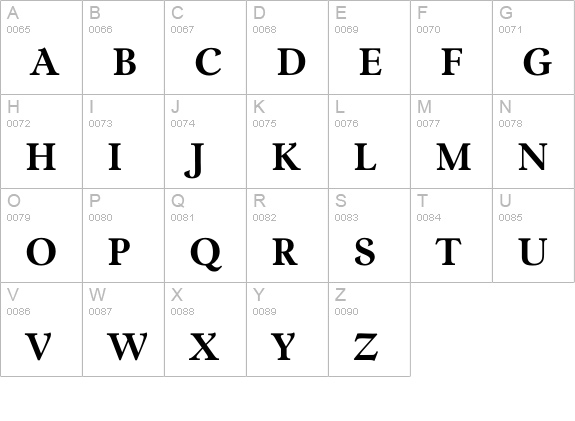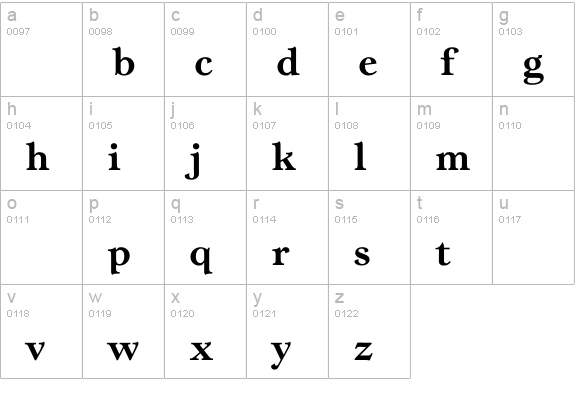
LombaBold Font Details
LombaBold font is a striking and modern typeface that exudes confidence and style. With its bold and eye-catching design, LombaBold is perfect for making a statement in your projects. The strong lines and unique curves of this font make it stand out in any application, whether it's for branding, advertising, or graphic design. And the best part? LombaBold is available for free download at FontsMarket.com. You can easily add this versatile font to your collection without breaking the bank. Don't miss out on the opportunity to elevate your designs with the bold and impactful LombaBold font. Download it now and see the difference it can make in your projects!